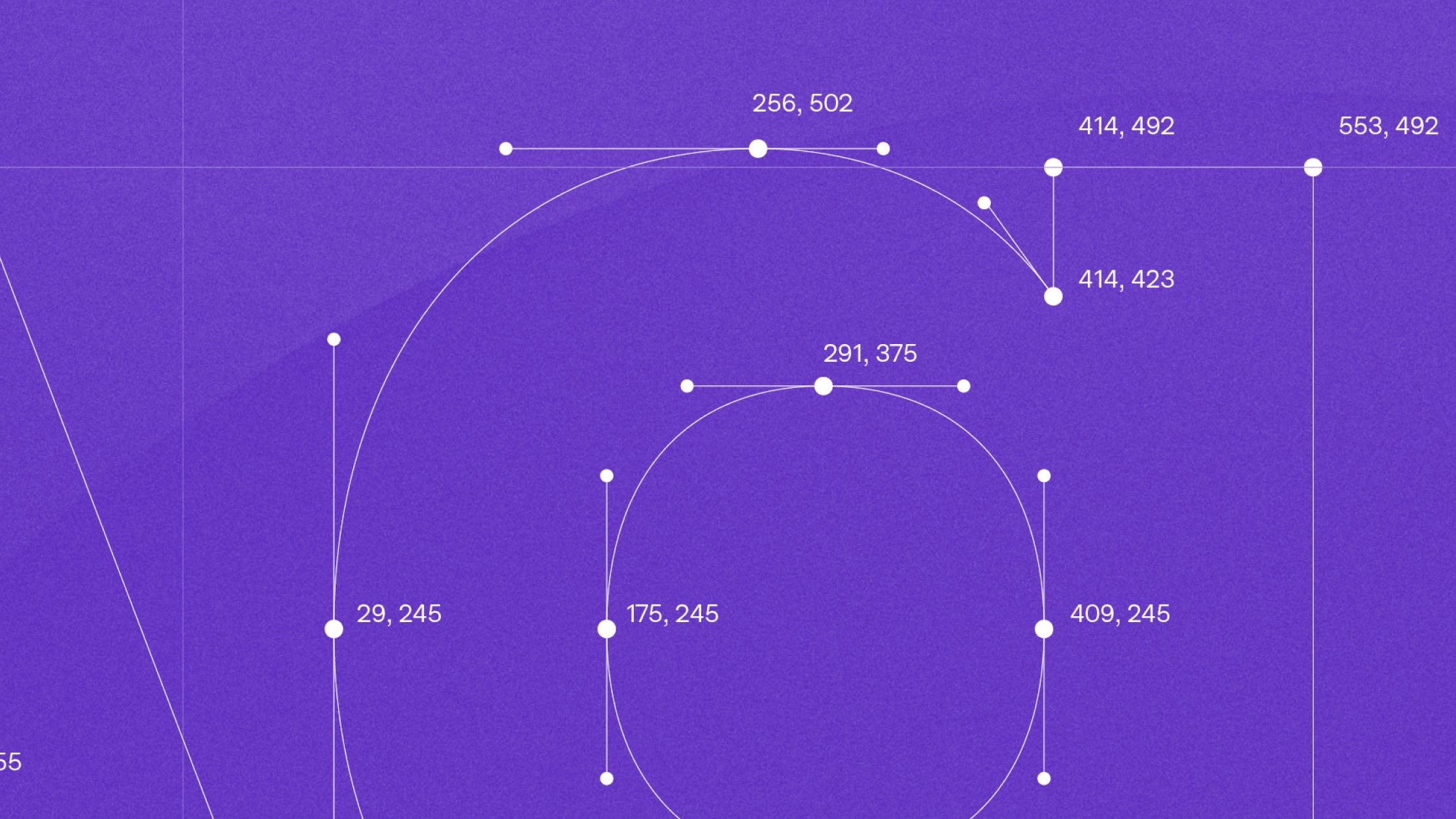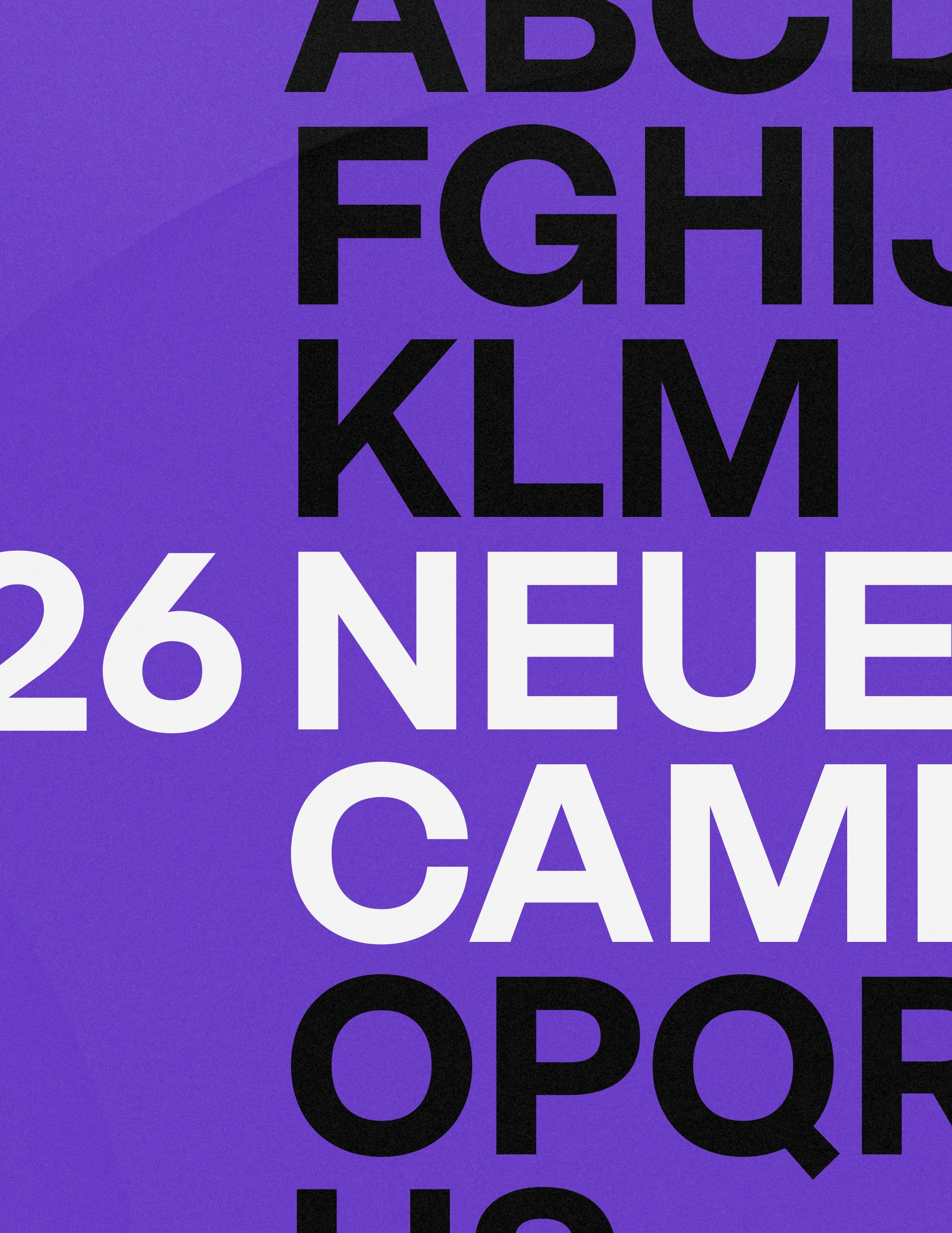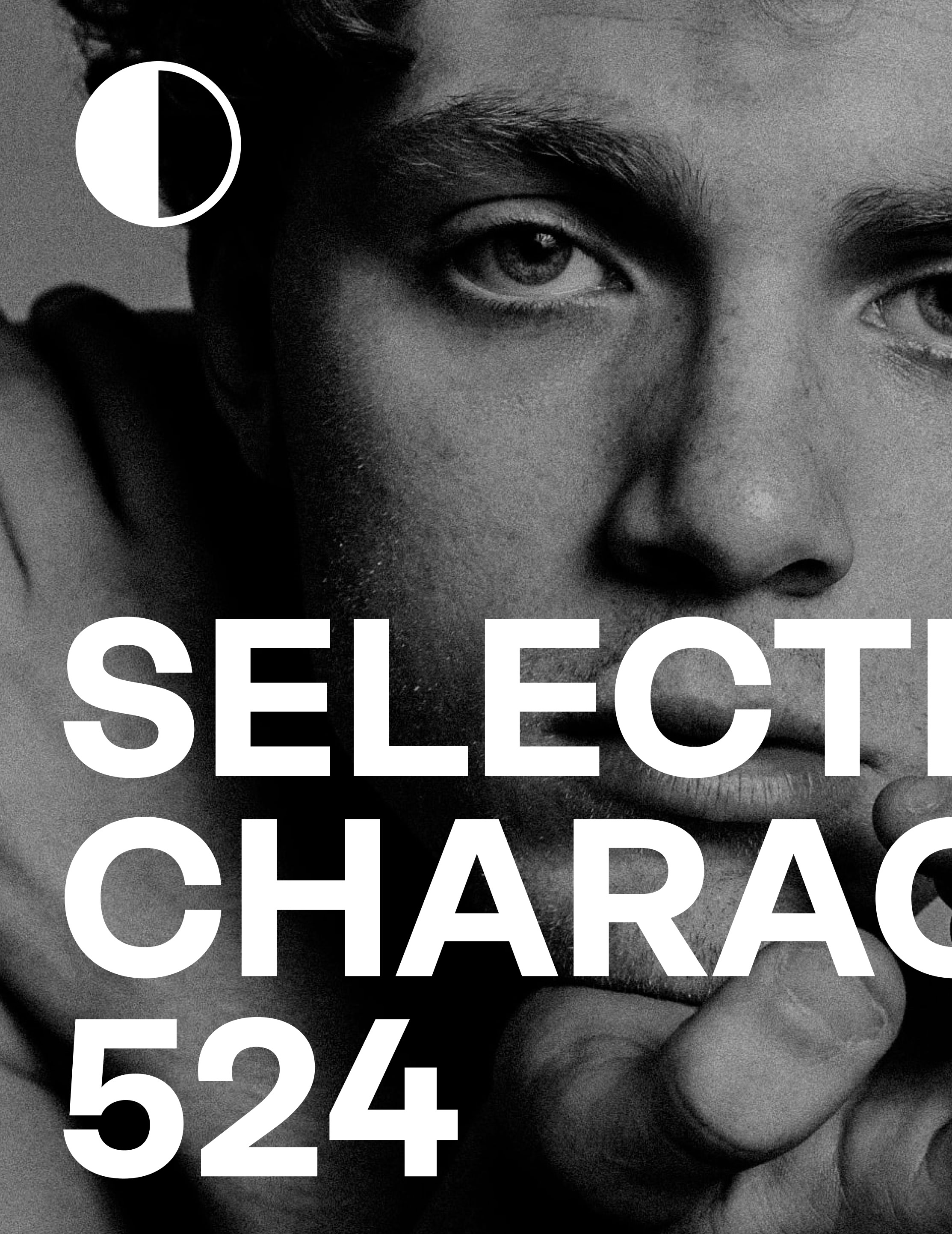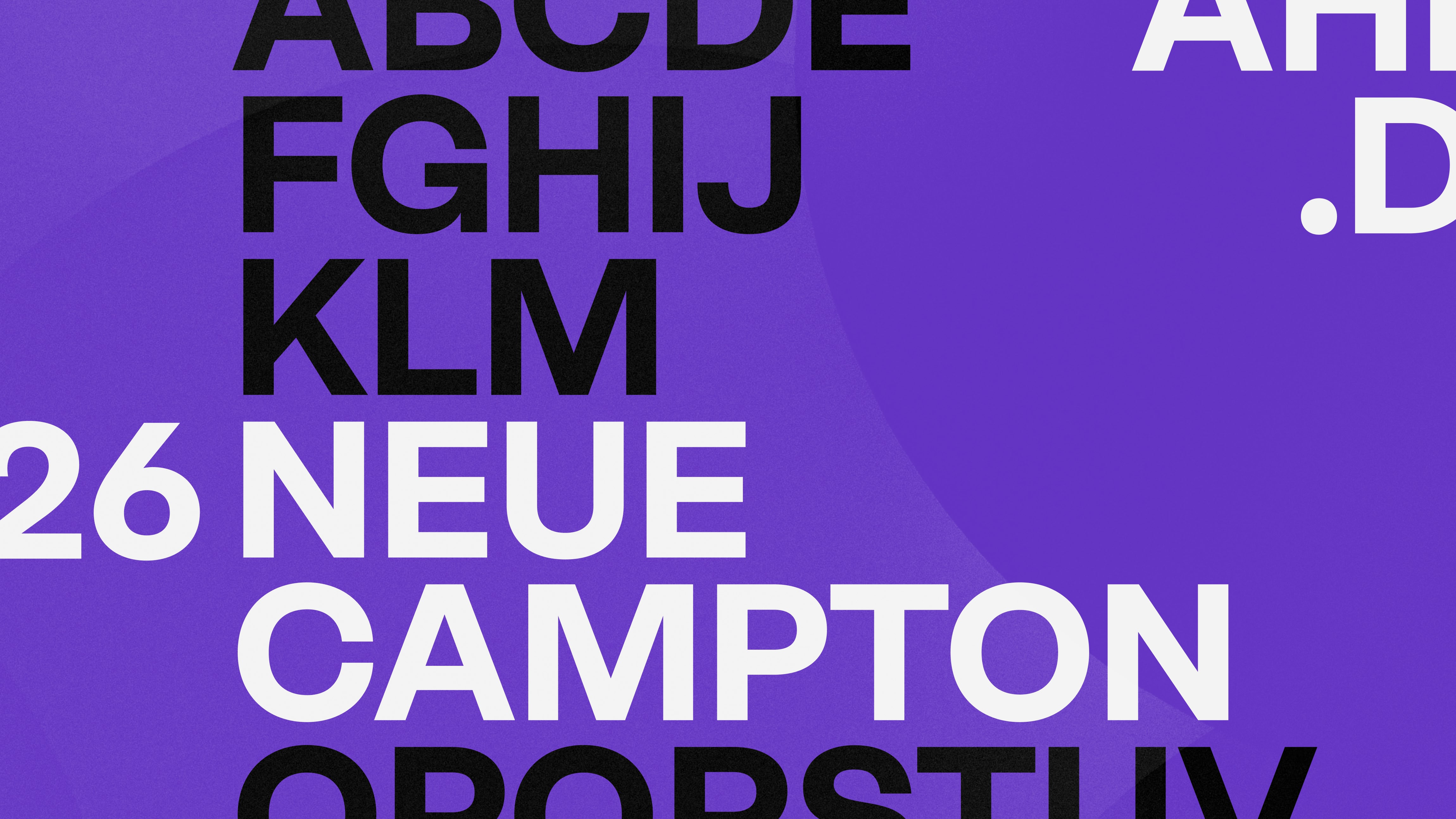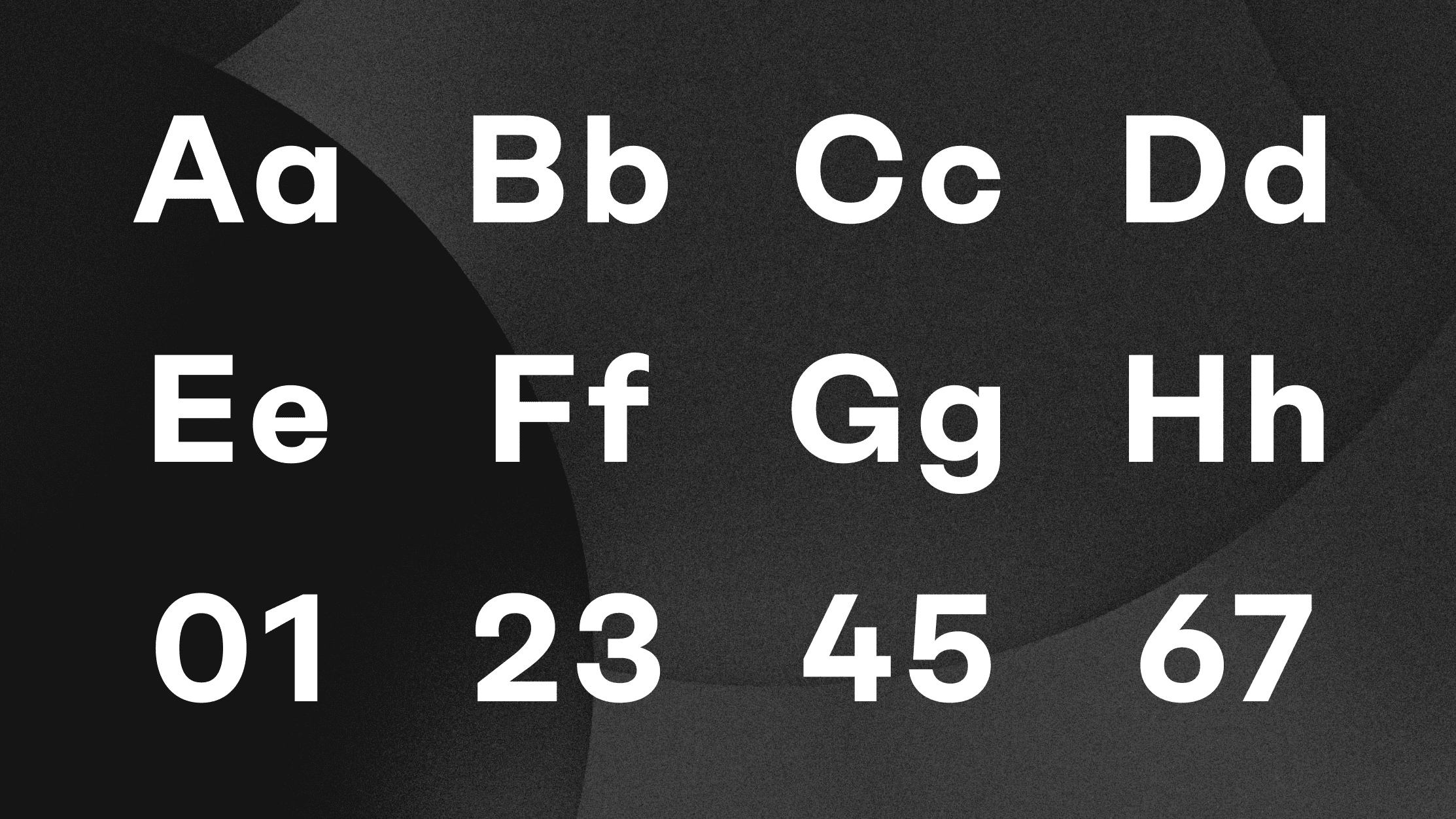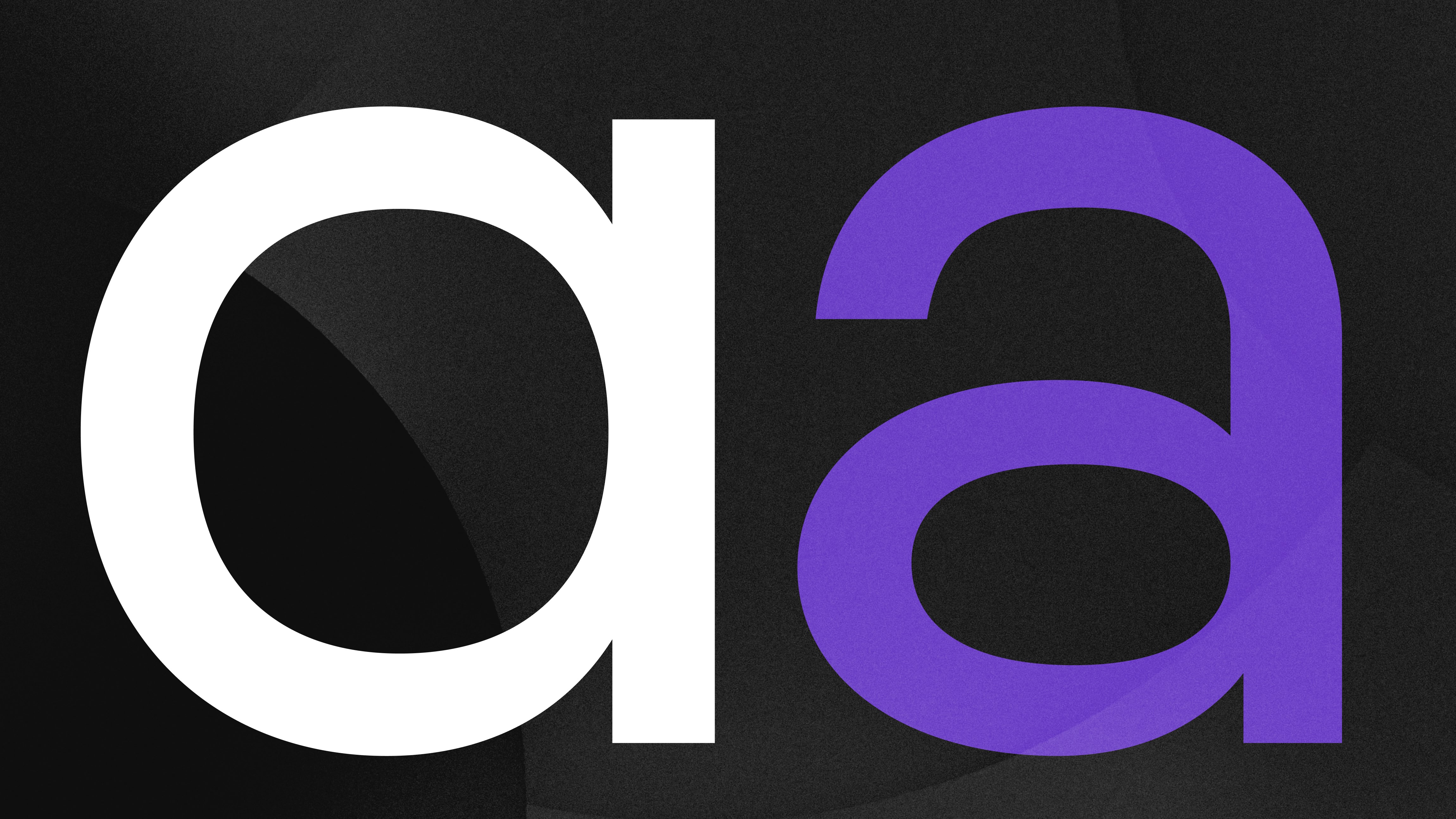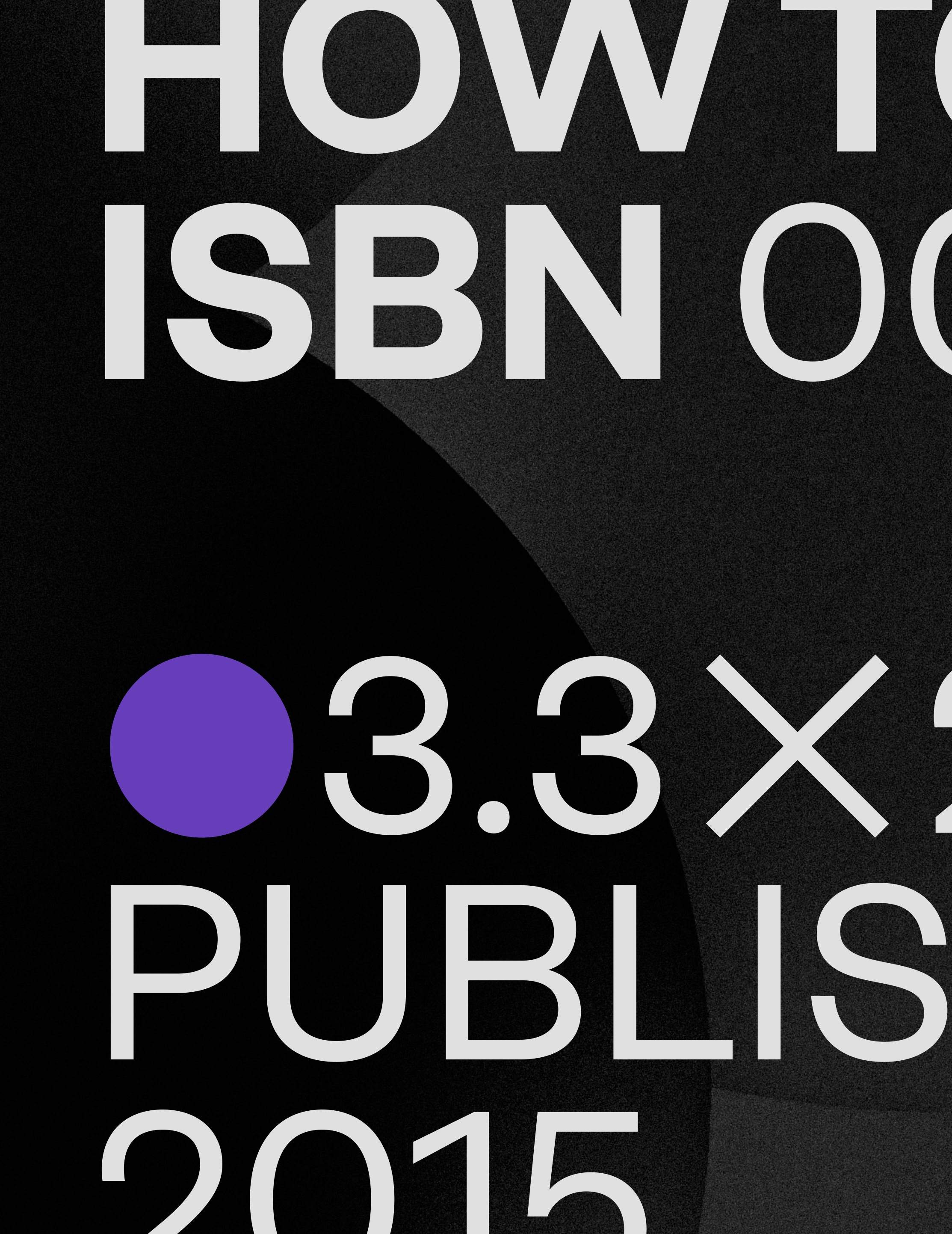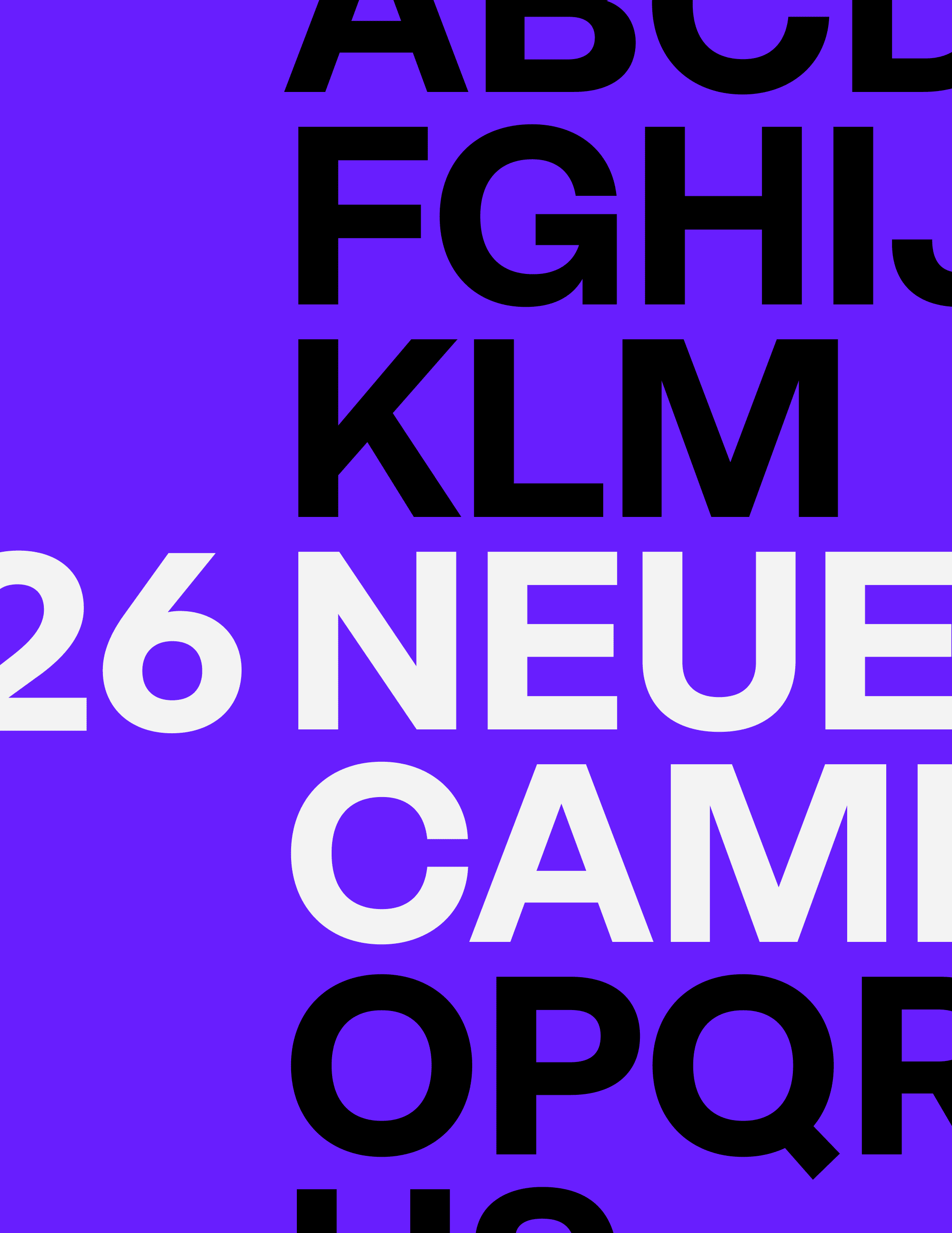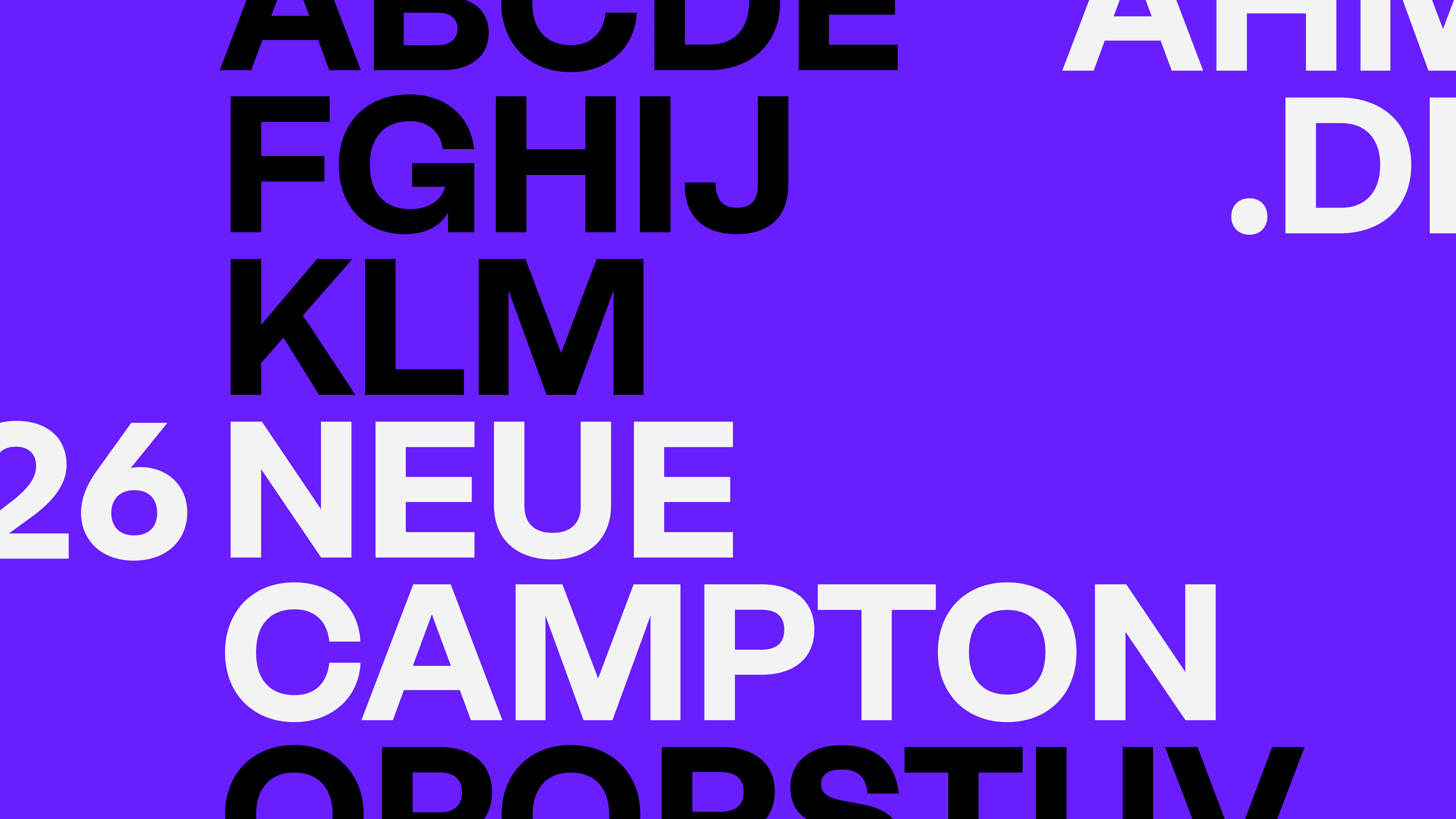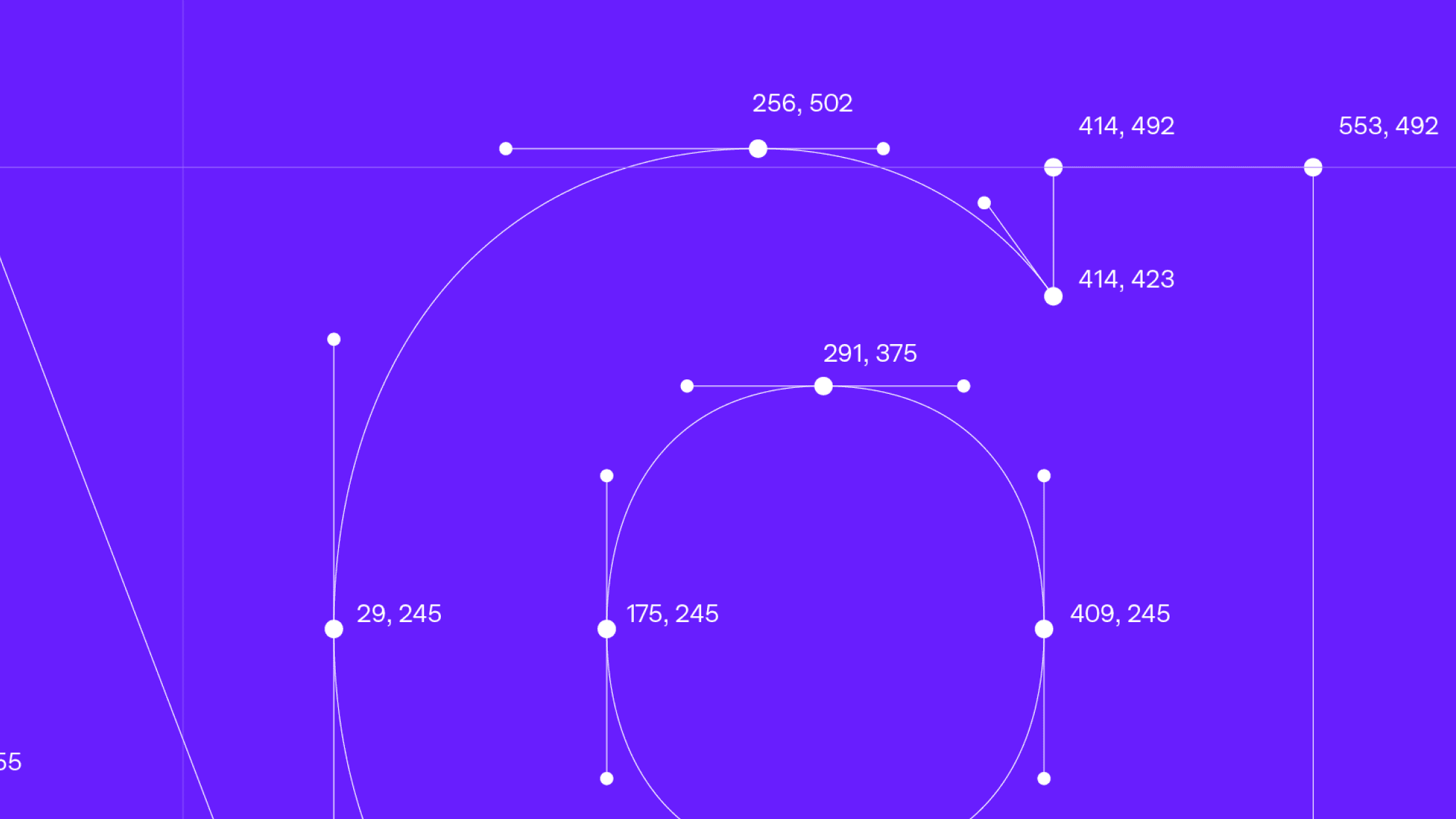
Neue Campton reinterprets the legacy of 20th-century geometric sans-serifs through a contemporary lens. Rooted in rational construction yet shaped by expressive details, it balances clarity, flexibility, and quirks with precision — refining the concept into a versatile modern family.